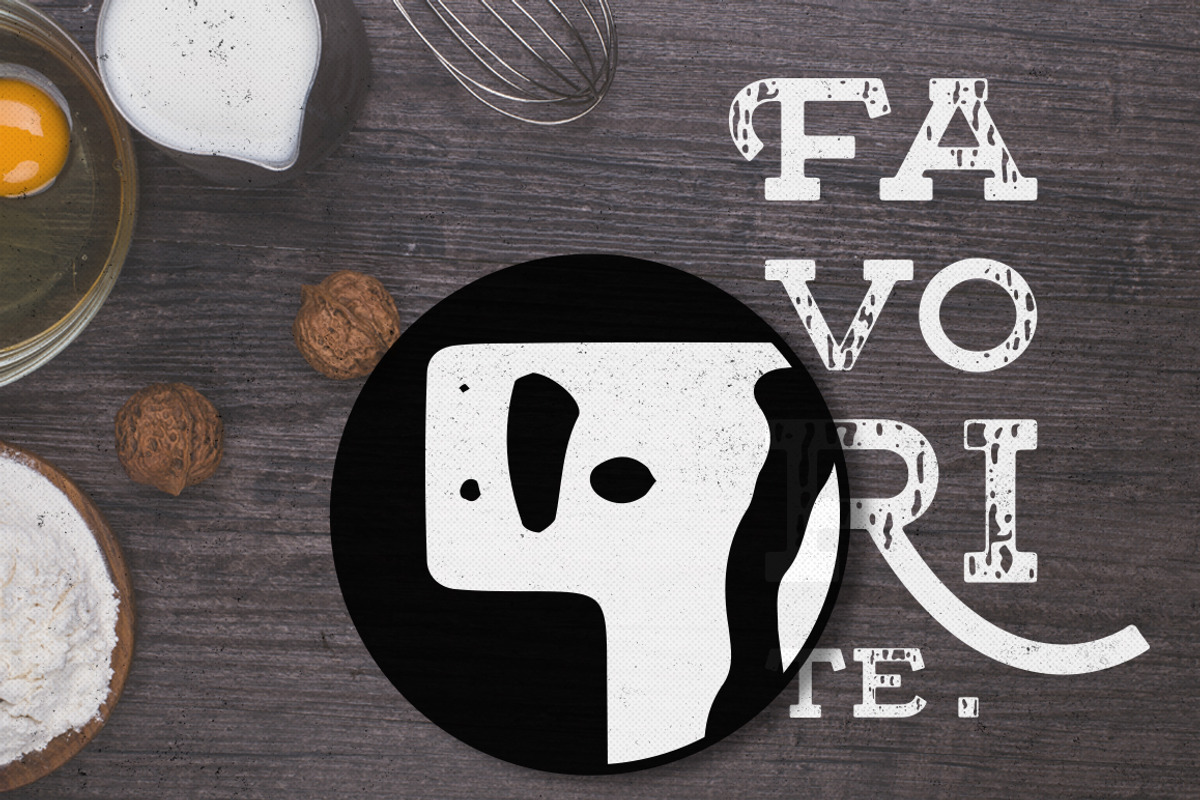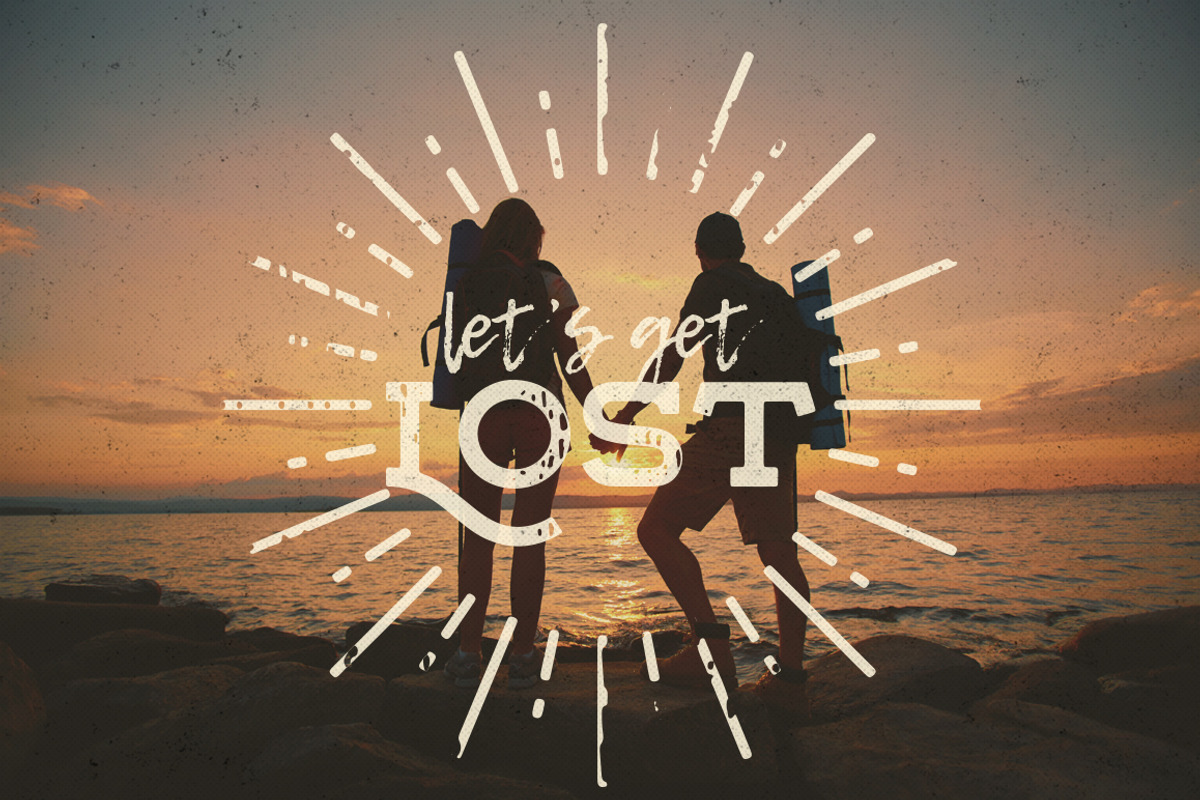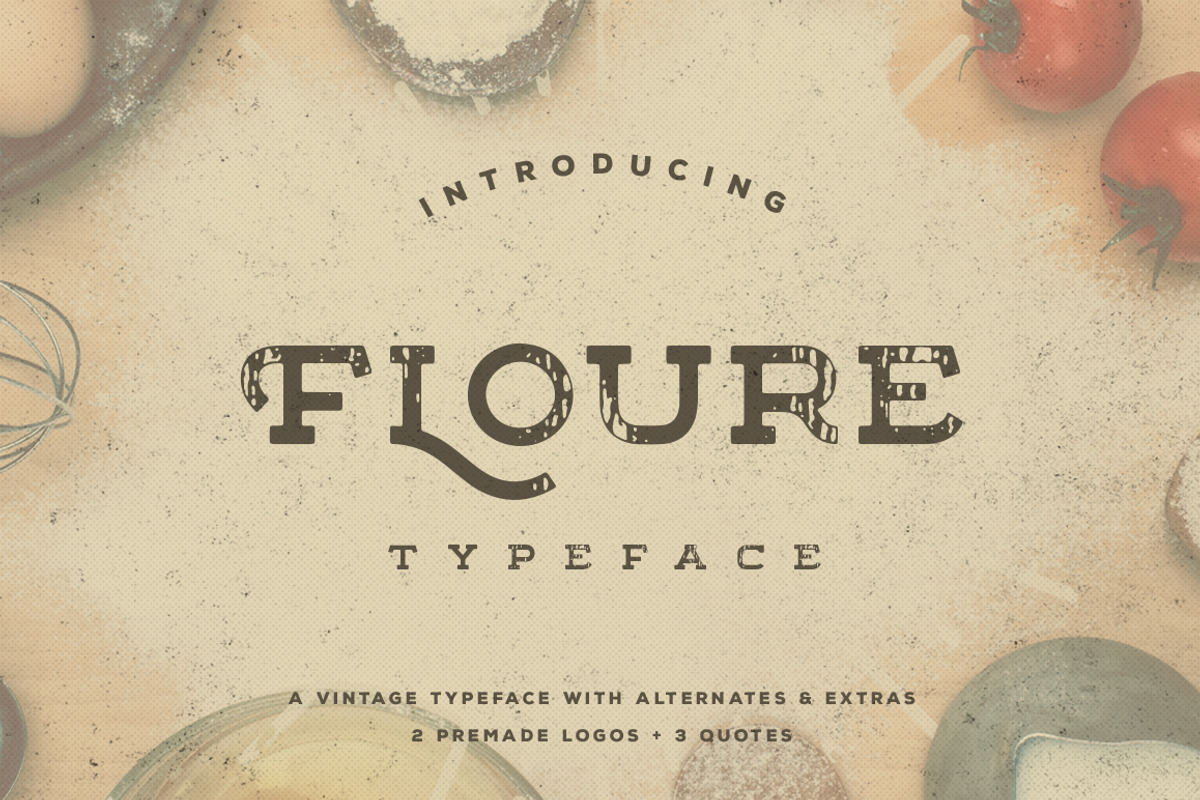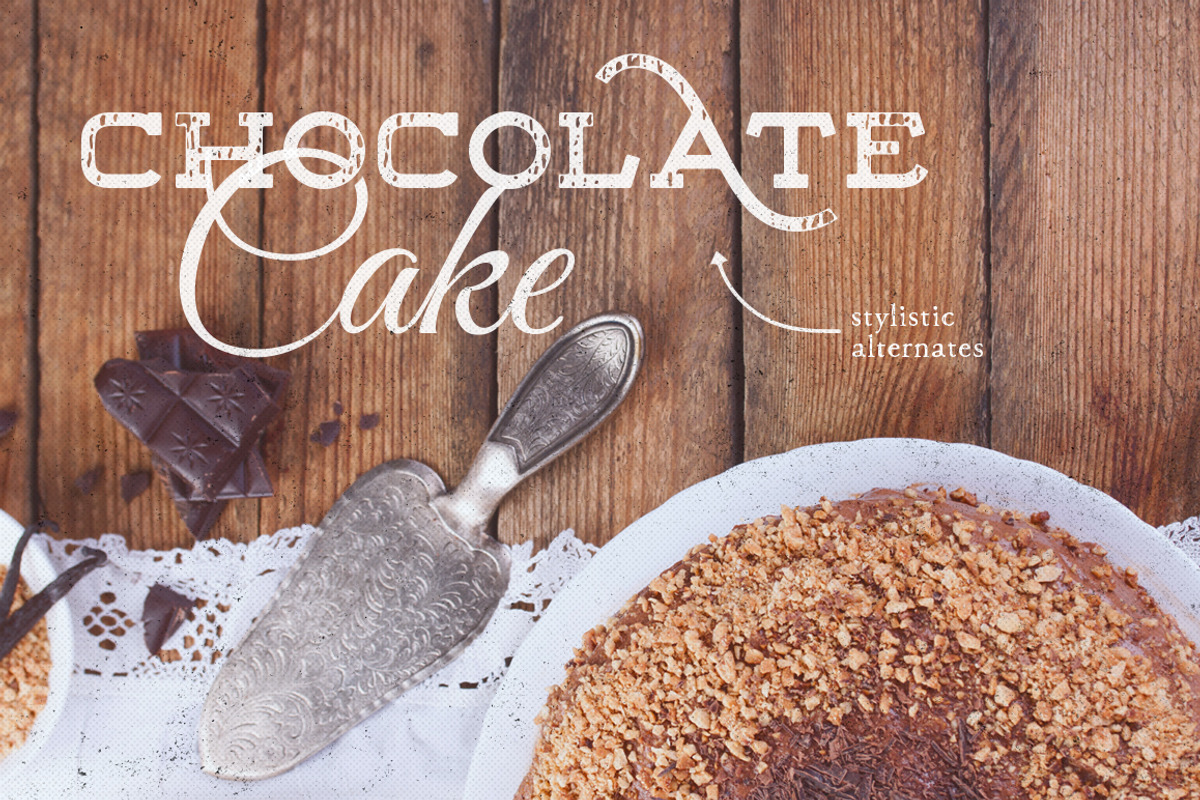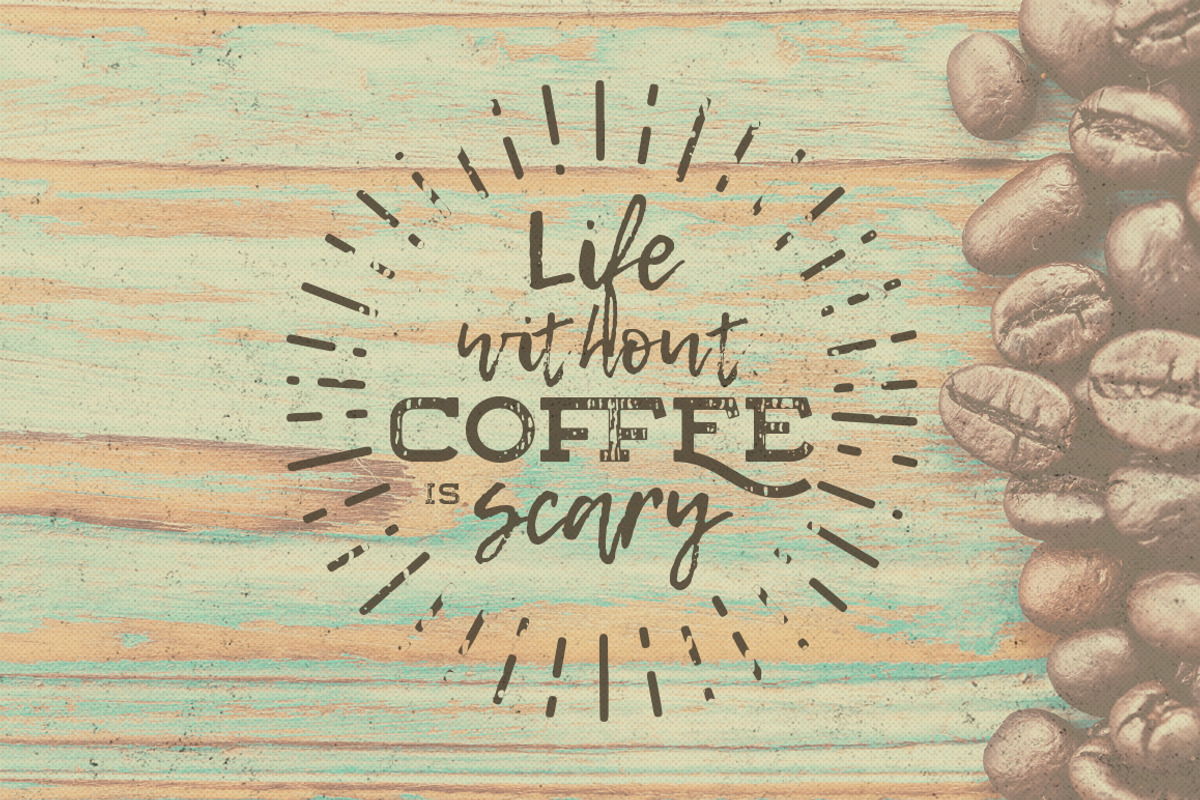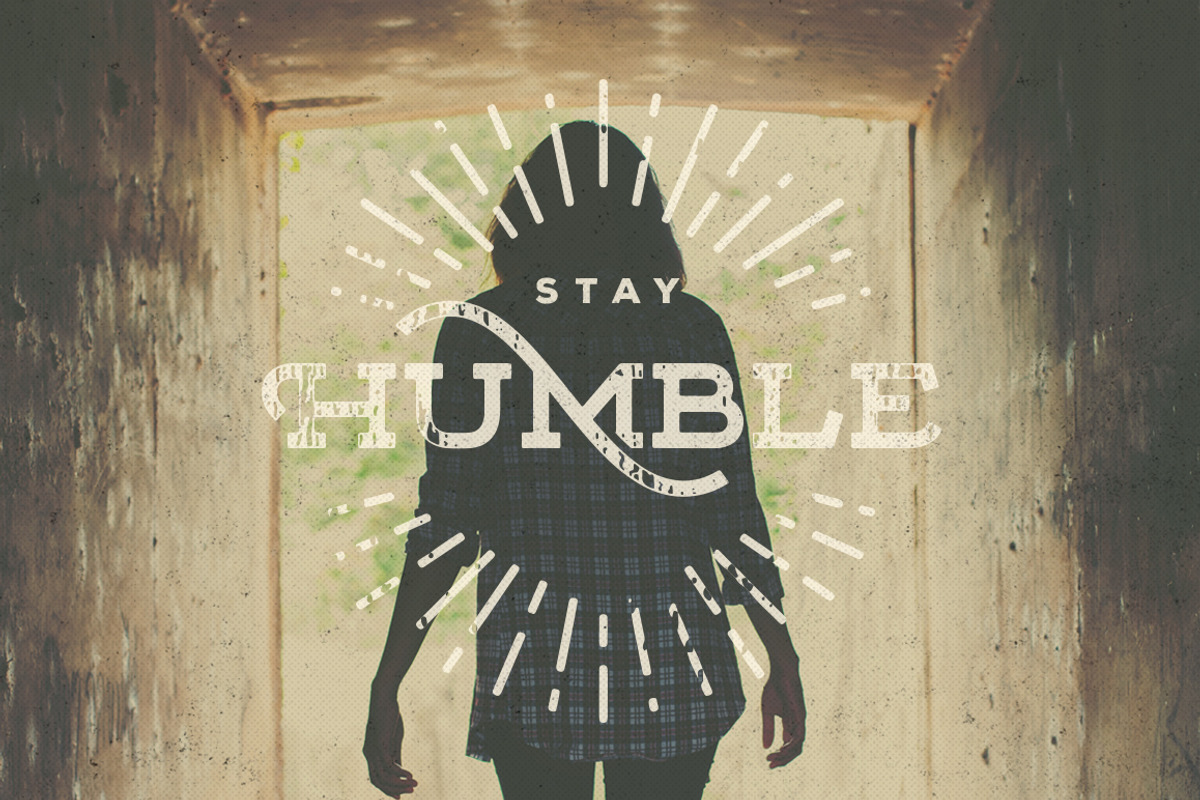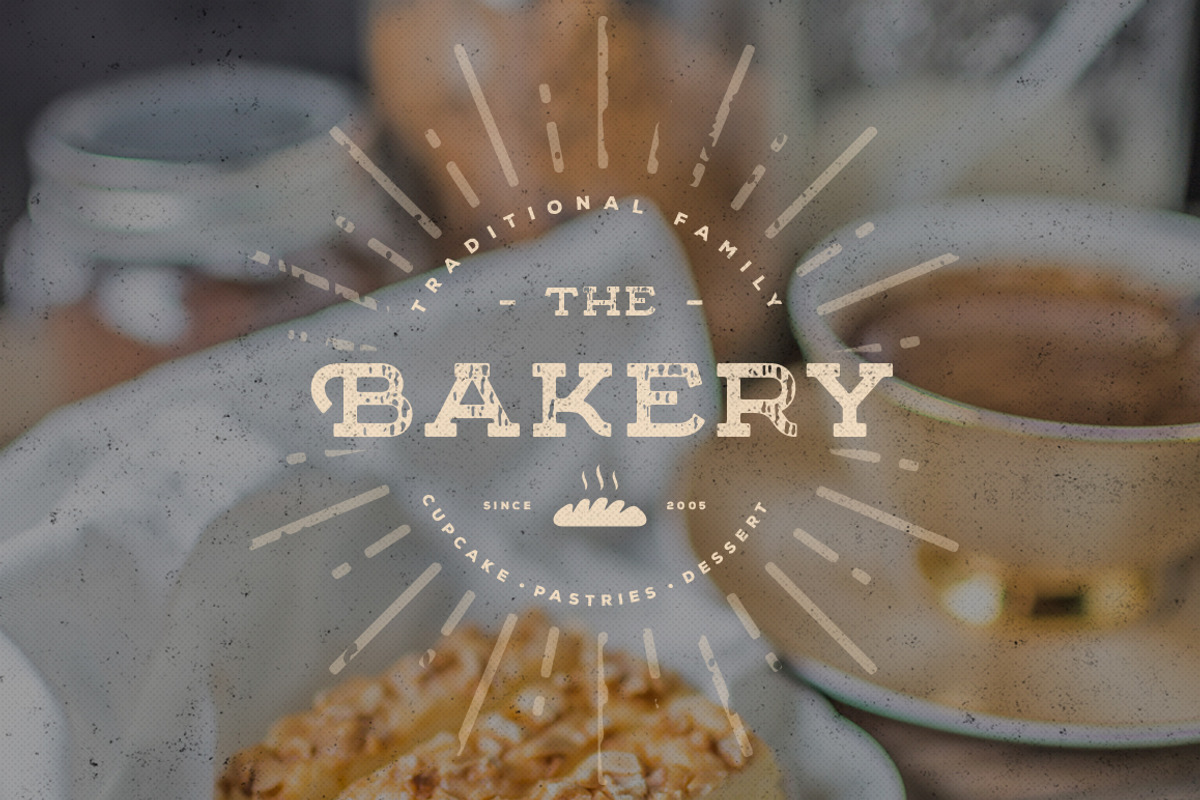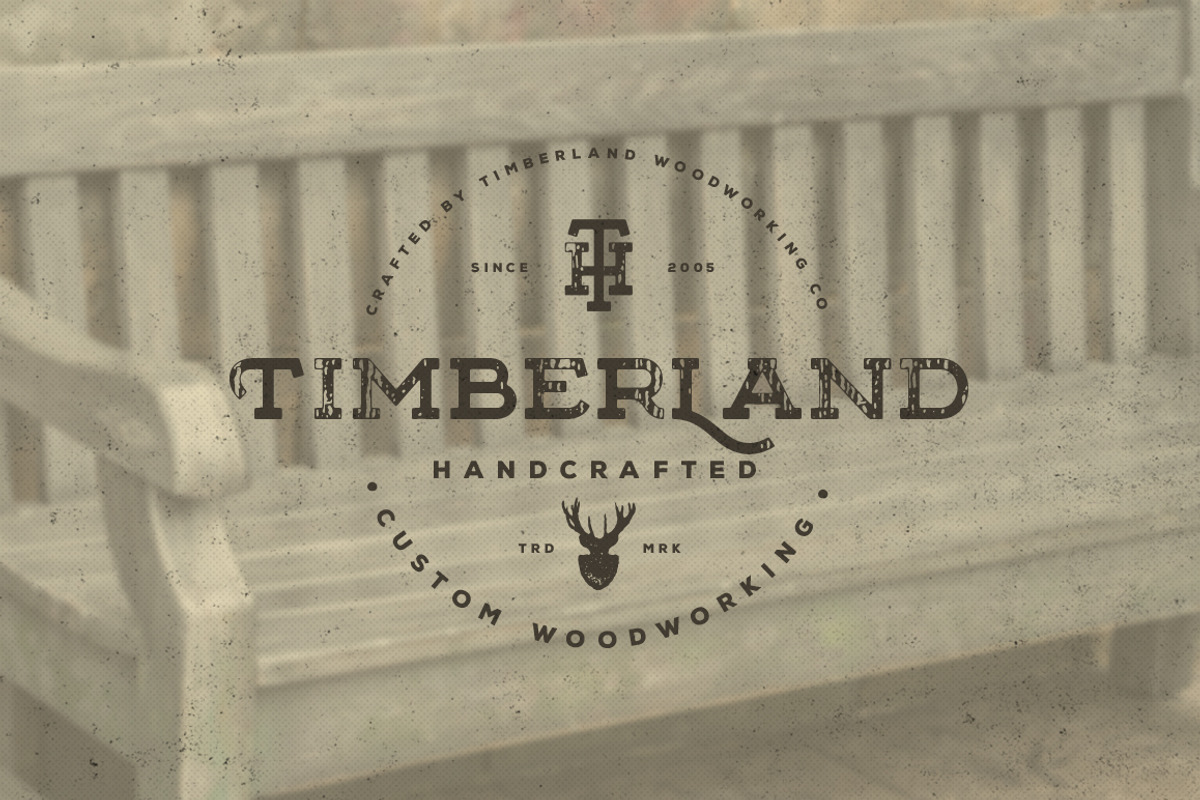
Floure Typeface + Extras
Floure Typeface + Extras by Refolve Design is a font selected for branding, posters, packaging, typography.
- EXTRA SET OF ALTERNATE LETTERS : To create a beautiful combination, floure typeface comes with some alternate lowercase characters available
- OPENTYPE FEATURES : Floure Typeface has also been coded to include some of double letter ligatures and of course the stylistic set of lowerc
Why Floure Typeface + Extras is worth a look
Floure Typeface + Extras by Refolve Design fits naturally into Branding, posters, packaging, typography.